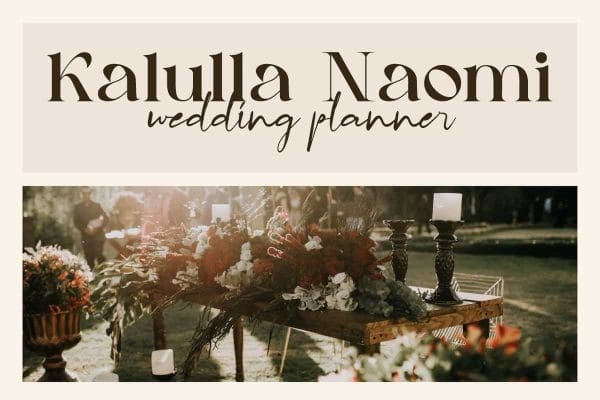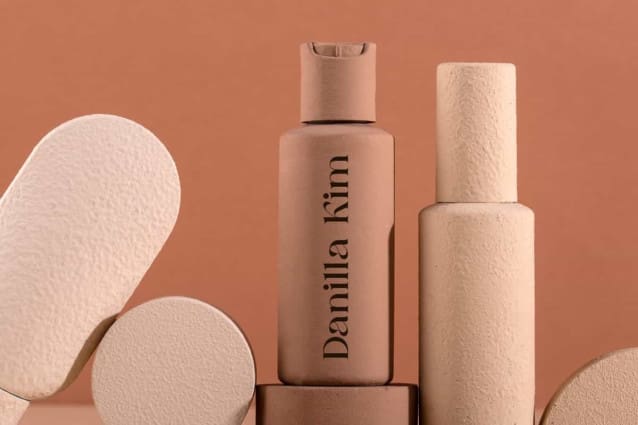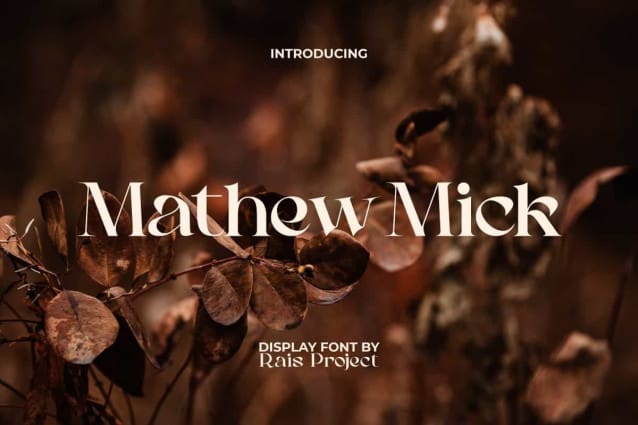
Mathew Mick Font
Mathew Mick Font is a classy pleasant stunning serif display font. This font has a perfect combination of thin and thick lines, giving it a balanced beauty with a luxurious feel. It will be good for any designs, such as brand image, cover, custom design, flyer, invitation, label, marketing material, poster, product packaging, quotes, signage, stationery, website page, and more!
Mathew Mick Font includes a full set of Uppercase and Lowercase Letters, Numerals, and large range of Punctuation. This beautiful font will be suitable for various industries, such as accessories, advertising, beauty product, event or wedding organizer, fashion brand, marketing, printing, publishing, real estate, spa and salon, etc.